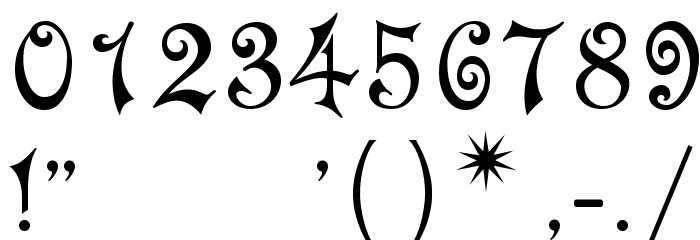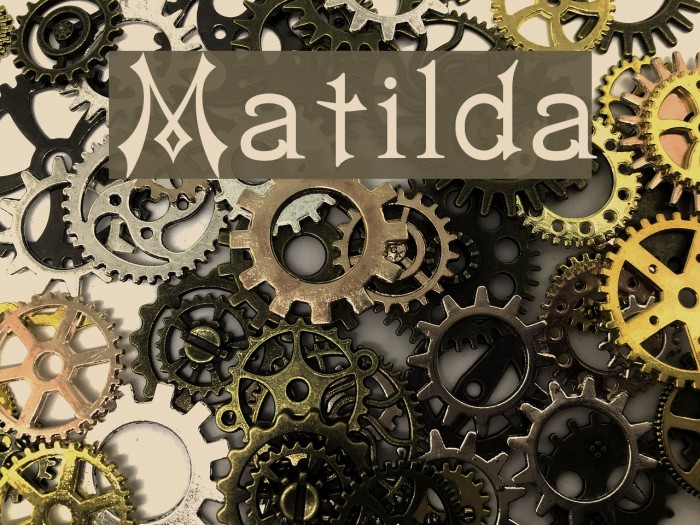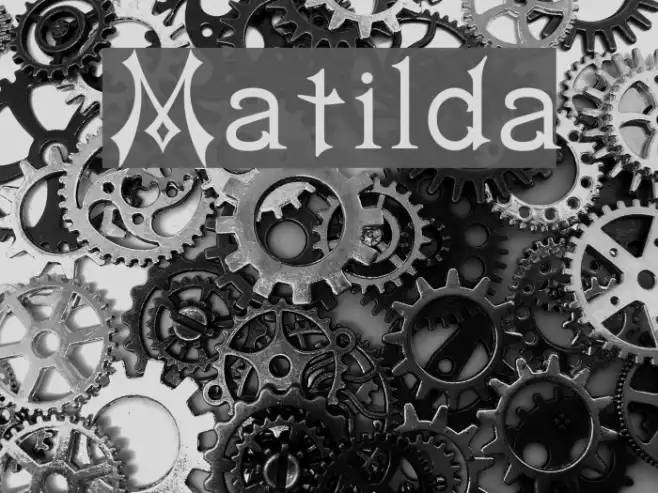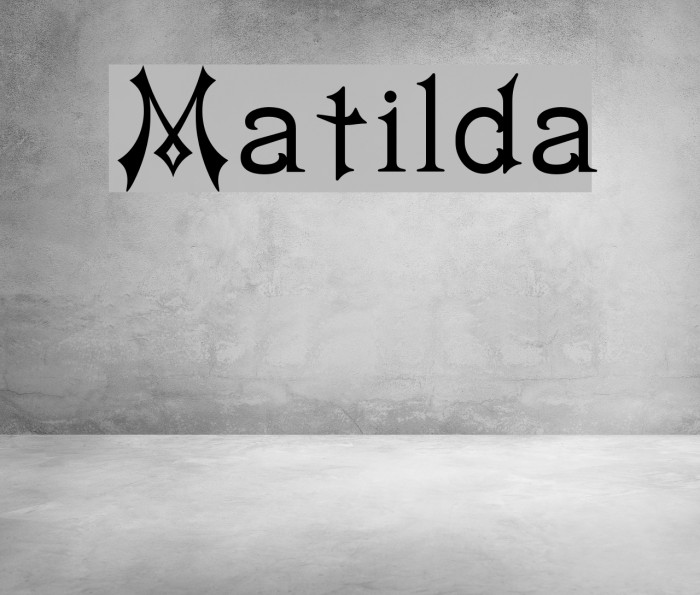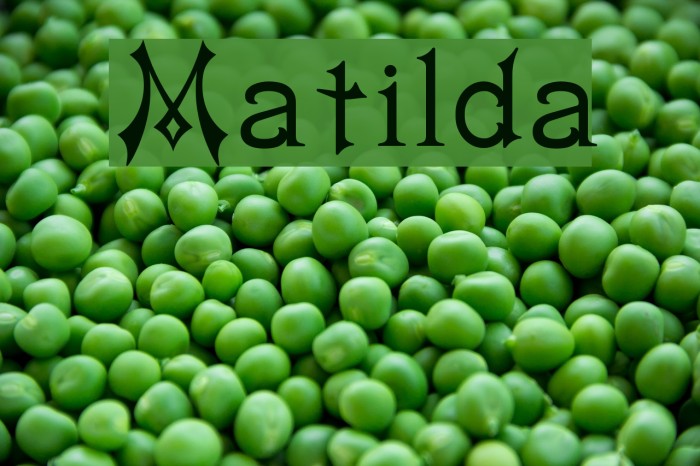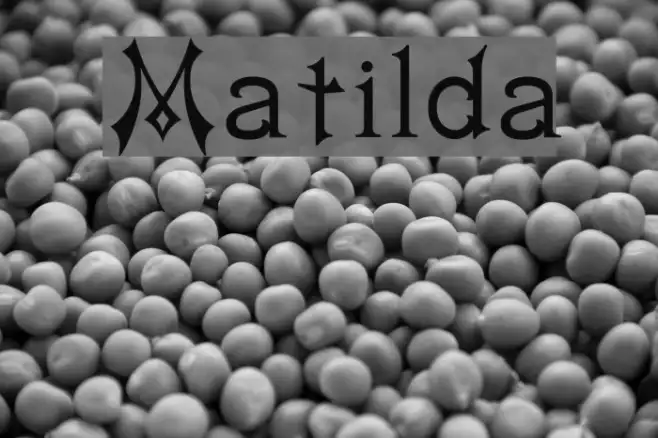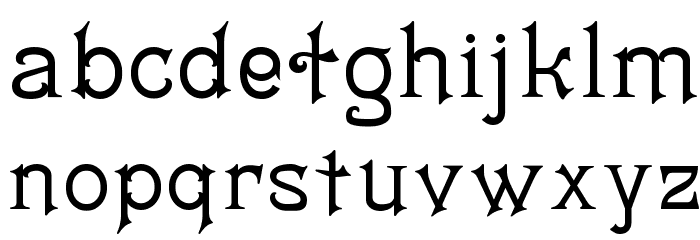
Matilda Font
This font features a unique and decorative style with elaborate serifs and intricate detailing. The uppercase letters are characterized by sharp, pointed serifs and bold strokes, giving them a dramatic and eye-catching appearance. The lowercase letters maintain a consistent style, with a slightly more subdued flair, yet still retaining the decorative elements. Numbers and special characters follow the same ornate design, making them stand out. The overall aesthetic is reminiscent of a gothic or medieval theme, suitable for projects that require a touch of elegance and historical flair.
A decorative font with gothic-inspired serifs and intricate detailing.
• Proposed Projects: Ideal for use in fantasy book covers, historical event posters, themed invitations, and branding for vintage or gothic-themed products.
• Category: Decorative/Display
• Overall Style: Gothic, Decorative
• Use Case: Headlines, Logos, Posters